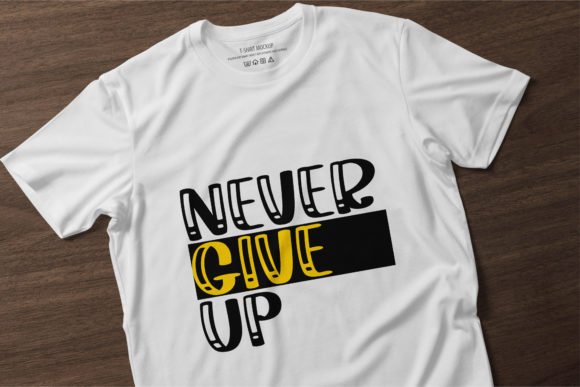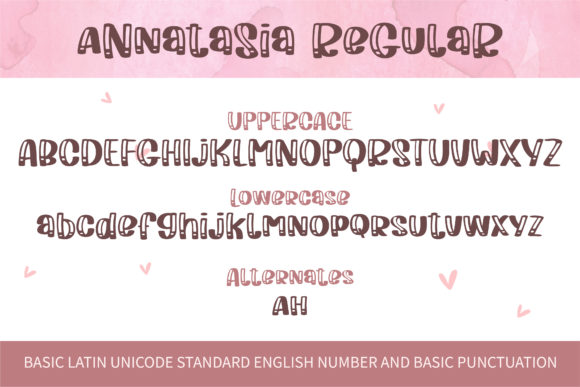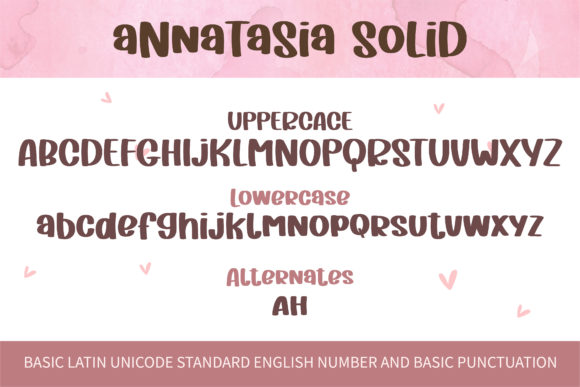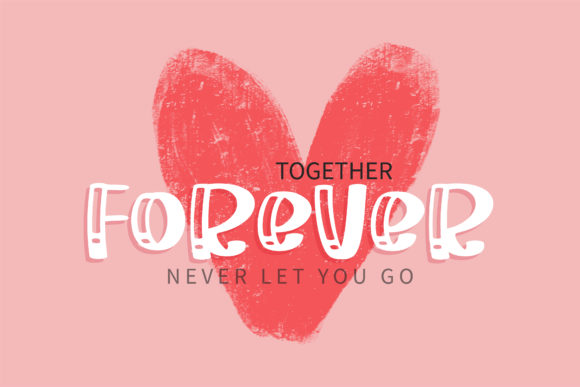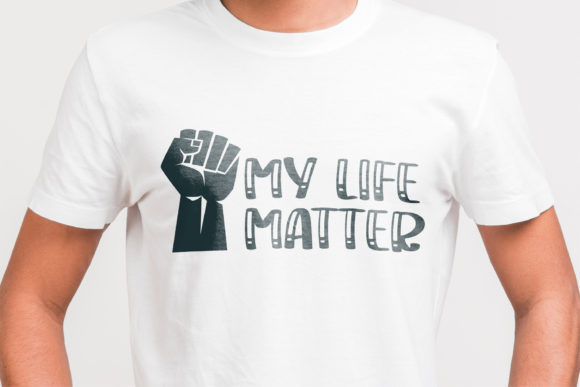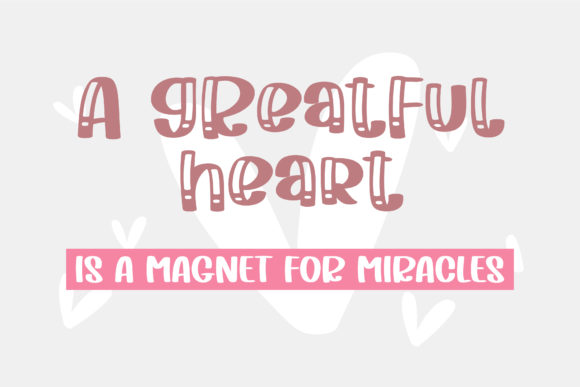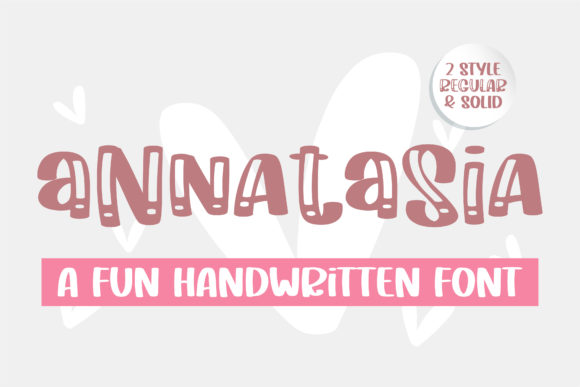
Introducing Annatasia Font: The Sweet and Bold Handwritten Font for Your Craft Designs
Are you a designer or crafter looking for a font that can add a touch of sweetness and boldness to your creations? Look no further than Annatasia Font! This beautiful handwritten font is simple, easy to use, and perfect for a variety of craft designs. In this article, we’ll take a closer look at Annatasia Font, its features, and how you can use it to elevate your designs.
What is Annatasia Font?
Annatasia Font is a sweet and bold handwritten font that is perfect for adding a personal touch to your craft designs. Its unique and elegant style makes it stand out from other fonts, and its simplicity makes it easy to use for a variety of projects. Whether you’re creating invitations, greeting cards, or social media graphics, Annatasia Font is sure to make your designs look beautiful and professional.
Key Features of Annatasia Font
So, what makes Annatasia Font so special? Here are some of its key features:
- Sweet and Bold Style: Annatasia Font has a unique sweet and bold style that is perfect for creating eye-catching designs.
- Handwritten: This font has a handwritten feel that gives it a personal and elegant touch.
- Simple and Easy to Use: Annatasia Font is simple and easy to use, making it perfect for designers and crafters of all levels.
- Versatile: This font can be used for a variety of craft designs, including invitations, greeting cards, social media graphics, and more.
How to Use Annatasia Font in Your Craft Designs
Using Annatasia Font in your craft designs is easy! Here are some tips to get you started:
- Pair it with Other Fonts: Annatasia Font looks great when paired with other fonts. Try pairing it with a sans-serif font for a modern look or a script font for a more elegant feel.
- Use it for Headings and Titles: Annatasia Font is perfect for headings and titles. Its bold and sweet style makes it easy to read and eye-catching.
- Add it to Your Social Media Graphics: Annatasia Font is perfect for social media graphics. Use it to create eye-catching graphics that will grab the attention of your followers.
- Use it for Invitations and Greeting Cards: Annatasia Font is perfect for invitations and greeting cards. Its elegant and personal style makes it perfect for special occasions.
Benefits of Using Annatasia Font
So, why should you use Annatasia Font in your craft designs? Here are some benefits:
- Unique and Eye-Catching: Annatasia Font is unique and eye-catching, making it perfect for creating designs that stand out.
- Easy to Use: This font is easy to use, making it perfect for designers and crafters of all levels.
- Versatile: Annatasia Font can be used for a variety of craft designs, making it a great addition to your font collection.
- Professional-Looking Designs: Annatasia Font is perfect for creating professional-looking designs that will impress your clients or followers.
In conclusion, Annatasia Font is a beautiful and versatile handwritten font that is perfect for adding a touch of sweetness and boldness to your craft designs. Its unique and elegant style makes it stand out from other fonts, and its simplicity makes it easy to use for a variety of projects. Whether you’re a designer or crafter, Annatasia Font is sure to become a favorite in your font collection.